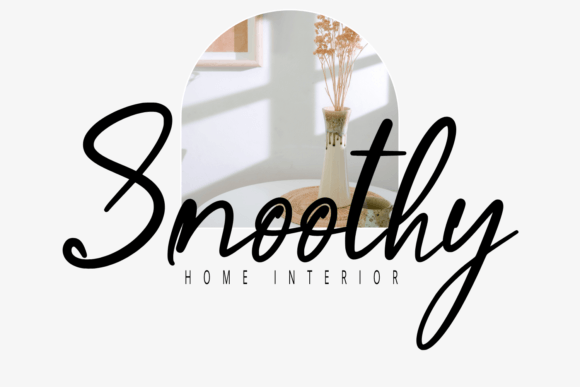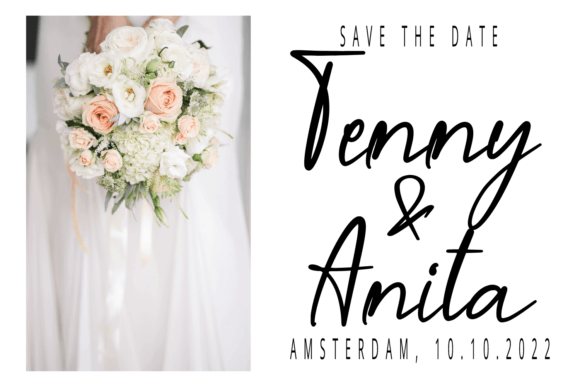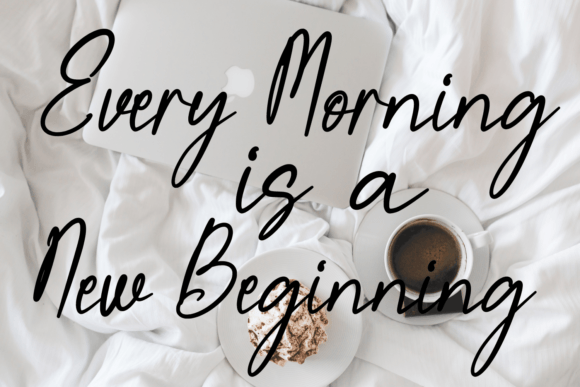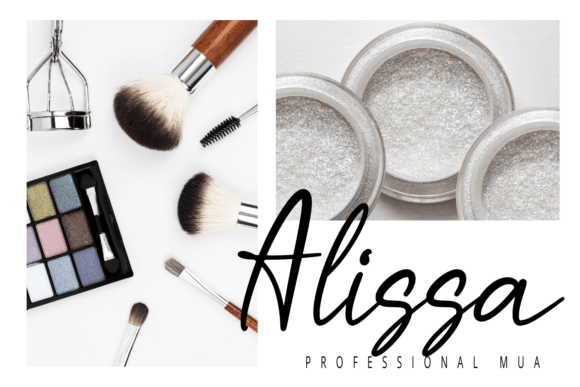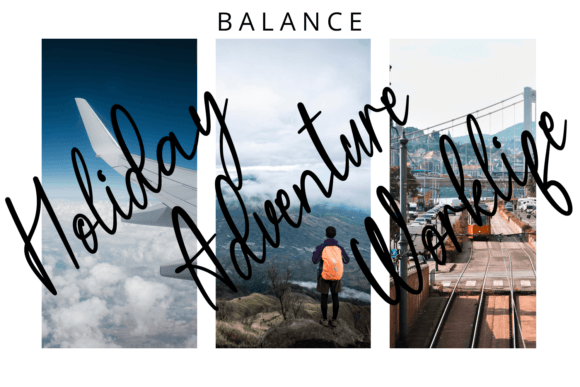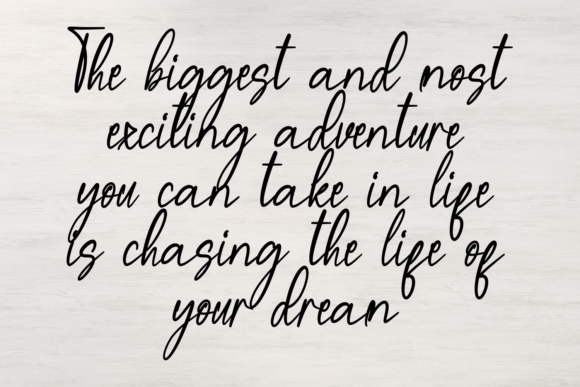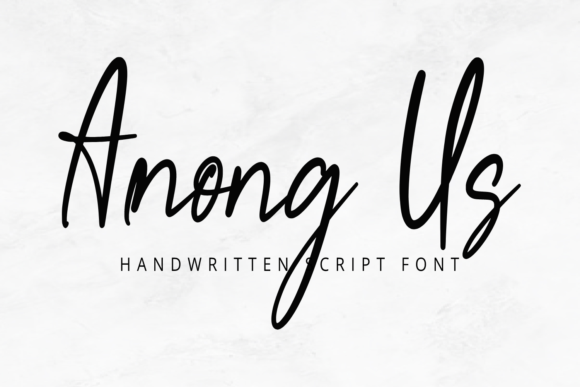
Among Us Font: Elevate Your Designs with Elegance and Class
Are you a designer or crafter looking for a font that exudes elegance and class? Look no further than the Among Us Font, a lovely and delicate script font that is sure to add a touch of sophistication to your designs. In this article, we’ll take a closer look at the Among Us Font, its features, and how you can use it to elevate your designs.
What is Among Us Font?
Among Us Font is a beautiful script font that was particularly crafted for those who need a stunning and refreshing look to their designs. This font is perfect for designers and crafters who want to add a handwritten touch to their work. With its delicate and elegant strokes, Among Us Font is sure to make your designs stand out from the crowd.
Features of Among Us Font
Among Us Font has several features that make it a great choice for designers and crafters. Some of its notable features include:
- Elegant and Classy: Among Us Font exudes elegance and class, making it perfect for designs that require a sophisticated look.
- Delicate Strokes: The font features delicate strokes that give it a handwritten touch.
- Versatile: Among Us Font can be used for a variety of designs, including wedding invitations, thank you cards, quotes, greeting cards, logos, business cards, and more.
- Easy to Read: Despite its delicate strokes, Among Us Font is easy to read, making it perfect for designs that require a clear and legible font.
Uses of Among Us Font
Among Us Font is a versatile font that can be used for a variety of designs. Here are some of the most popular uses of this font:
- Wedding Invitations: Among Us Font is perfect for wedding invitations, adding a touch of elegance and sophistication to your wedding stationery.
- Thank You Cards: Use Among Us Font to create beautiful thank you cards that will make your loved ones feel special.
- Quotes: Add a touch of elegance to your quotes with Among Us Font, making them perfect for social media posts, blogs, and more.
- Greeting Cards: Among Us Font is perfect for creating greeting cards for special occasions, such as birthdays, anniversaries, and holidays.
- Logos: Use Among Us Font to create a stunning logo for your business or brand, adding a touch of elegance and sophistication.
- Business Cards: Among Us Font is perfect for business cards, making them stand out from the crowd and adding a touch of professionalism.
Tips for Using Among Us Font
Here are some tips for using Among Us Font in your designs:
- Pair it with Other Fonts: Among Us Font looks great when paired with other fonts, such as sans-serif fonts. Experiment with different font combinations to find the perfect look for your design.
- Use it for Headings: Among Us Font is perfect for headings, adding a touch of elegance and sophistication to your design.
- Experiment with Colors: Among Us Font looks great in a variety of colors, from soft pastels to bold and bright colors. Experiment with different colors to find the perfect look for your design.
| Font Name | Among Us Font |
| Author | Al Ghul |
Among Us Font is a beautiful and elegant script font that is perfect for designers and crafters who want to add a touch of sophistication to their designs. With its delicate strokes and versatile uses, Among Us Font is sure to become a favorite in your font collection. Whether you’re creating wedding invitations, thank you cards, or logos, Among Us Font is the perfect choice. So why wait? Download Among Us Font today and start creating stunning designs that exude elegance and class!